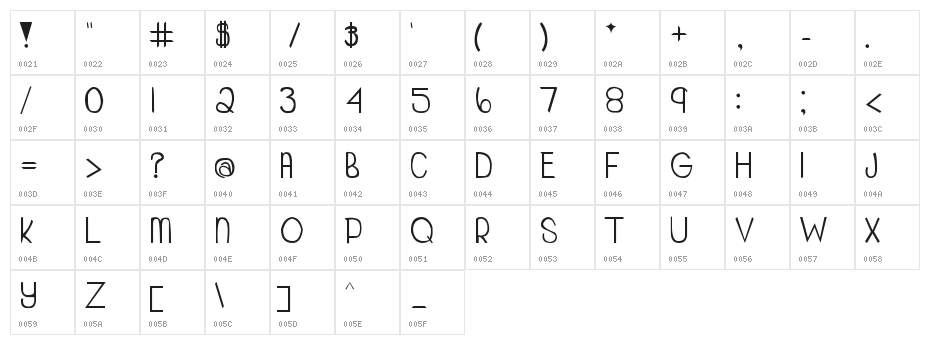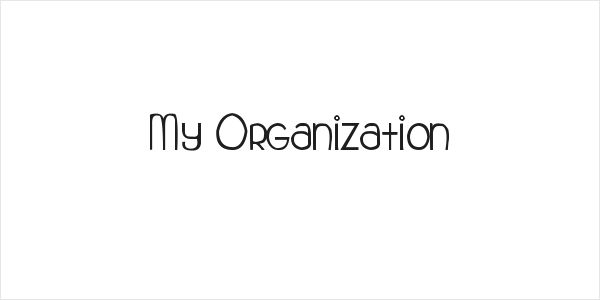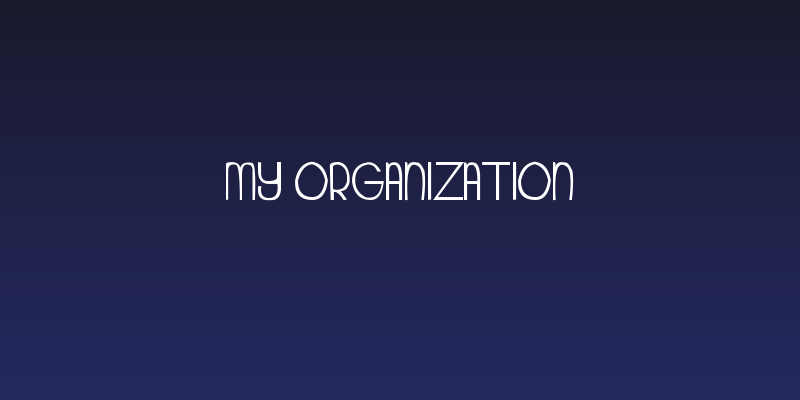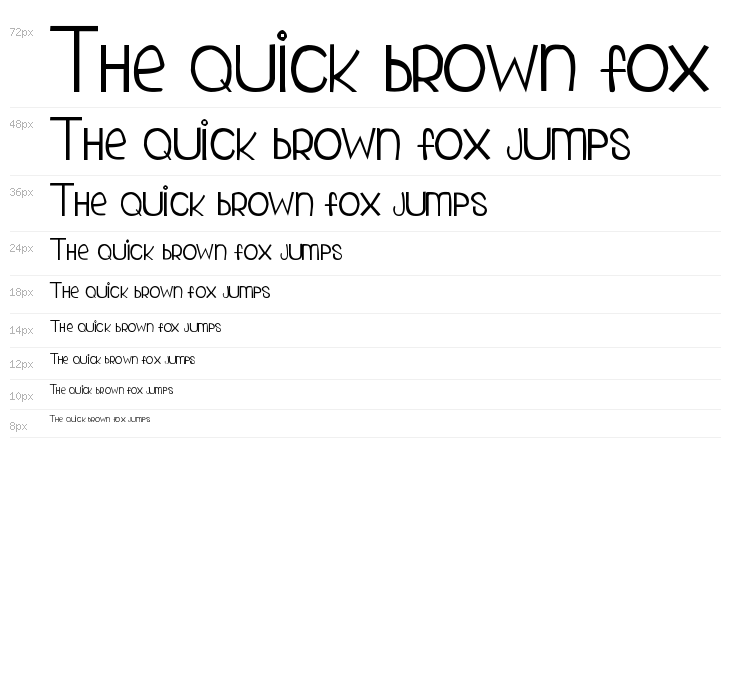
My Organization Font
My Organization Description
This font features a unique blend of geometric and art deco influences, characterized by its clean lines and rounded edges. The uppercase letters exhibit a tall, narrow form with a slight curvature that adds a touch of elegance. The lowercase letters maintain a consistent style, complementing the uppercase with their smooth curves and balanced proportions. Numbers are designed with a similar aesthetic, ensuring readability and style. Special characters are crafted with attention to detail, maintaining the overall cohesive look. This font's modern yet retro appeal makes it versatile for various design projects.